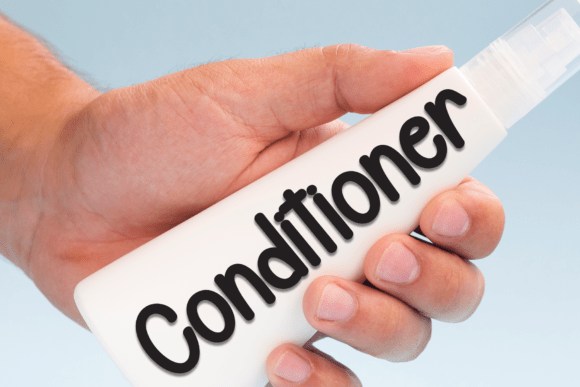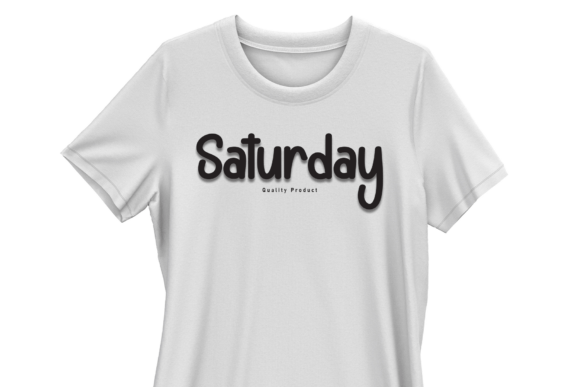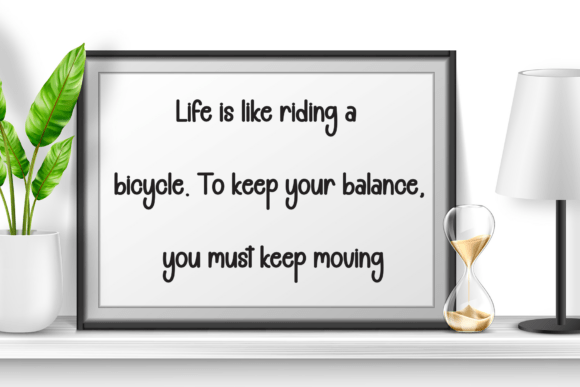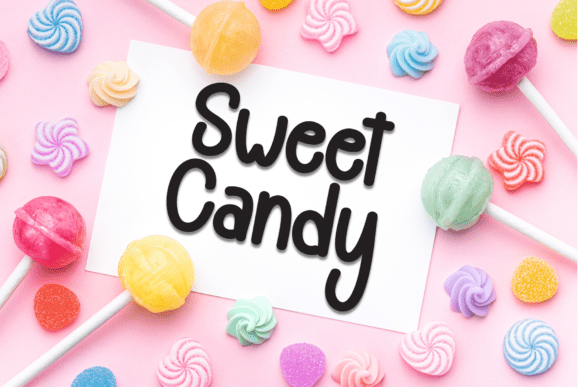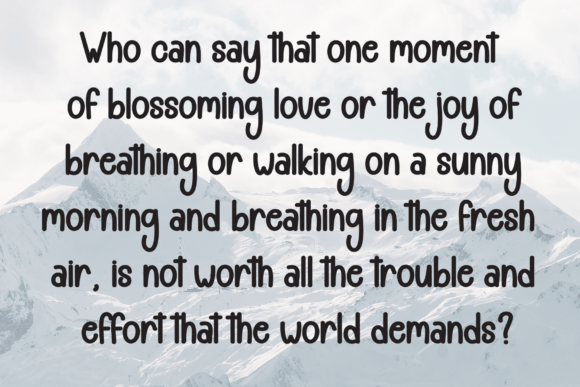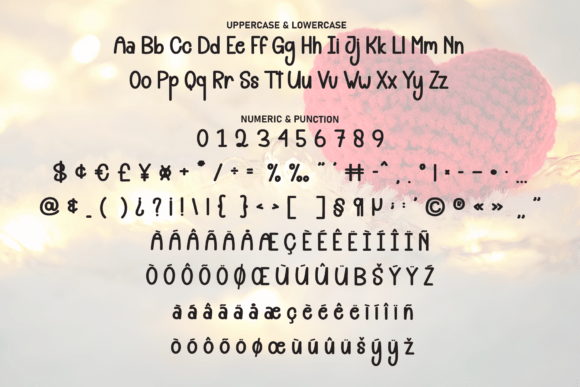
Dreamy Valentine Font: Add a Touch of Whimsy to Your Designs
Are you looking for a font that exudes warmth, friendliness, and playfulness? Look no further than the Dreamy Valentine Font, a delightful handwritten display font that is sure to bring a smile to your face. This charming font is perfect for designers and crafters who want to add a touch of whimsy to their projects, making it ideal for wedding invitations, greeting cards, and other design projects that require a sprinkle of joy.
What Makes Dreamy Valentine Font So Special?
The Dreamy Valentine Font is a one-of-a-kind font that is packed with charm and fun. Its handwritten strokes are carefree and playful, making it perfect for designs that require a personal touch. The font’s unique character is sure to make your designs stand out in a crowd, whether you’re creating wedding invitations, birthday cards, or social media graphics.
Wedding invitations and cards are a great way to showcase the Dreamy Valentine Font. The font’s playful and romantic feel makes it perfect for couples who want to add a touch of whimsy to their wedding stationery. Imagine sending out wedding invitations that are not only informative but also visually stunning, setting the tone for a joyful and celebratory wedding day.
The Dreamy Valentine Font is not just limited to wedding invitations and cards. Its versatility makes it perfect for a wide range of design projects, including:
- Social media graphics: Add a touch of playfulness to your social media graphics, making them stand out in a crowded feed.
- Party invitations: Create eye-catching party invitations that set the tone for a fun and celebratory event.
- Branding: Use the Dreamy Valentine Font to add a personal touch to your brand’s identity, making it more approachable and friendly.
- Stationery: Create custom stationery, such as notebooks, journals, and stickers, that showcase the font’s playful character.
Why Choose Dreamy Valentine Font?
There are many fonts available, but the Dreamy Valentine Font stands out from the rest. Here are just a few reasons why:
- Unique character: The font’s handwritten strokes are one-of-a-kind, making it perfect for designers who want to add a personal touch to their designs.
- Playful feel: The font’s playful feel makes it perfect for designs that require a touch of whimsy and fun.
- Easy to read: Despite its playful feel, the font is easy to read, making it perfect for designs that require a clear and concise message.
Tips for Using Dreamy Valentine Font
To get the most out of the Dreamy Valentine Font, here are a few tips:
- Use it sparingly: While the font is playful and fun, it can be overwhelming if used excessively. Use it sparingly to add a touch of whimsy to your designs.
- Pair it with other fonts: The Dreamy Valentine Font pairs well with other fonts, such as serif and sans-serif fonts. Experiment with different font combinations to find the perfect pairing.
- Experiment with colors: The font looks great in a variety of colors, from bright and bold to soft and pastel. Experiment with different colors to find the perfect match for your design.
The Dreamy Valentine Font is a delightful handwritten display font that is sure to bring a touch of whimsy to your designs. Its playful and romantic feel makes it perfect for wedding invitations, cards, and other design projects that require a sprinkle of joy. With its unique character, ease of use, and endless design possibilities, this font is a must-have for designers and crafters who want to add a personal touch to their designs.